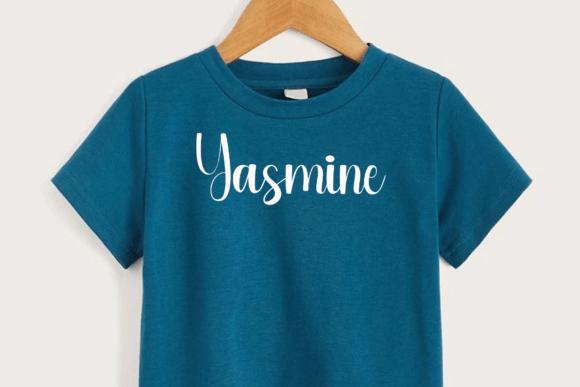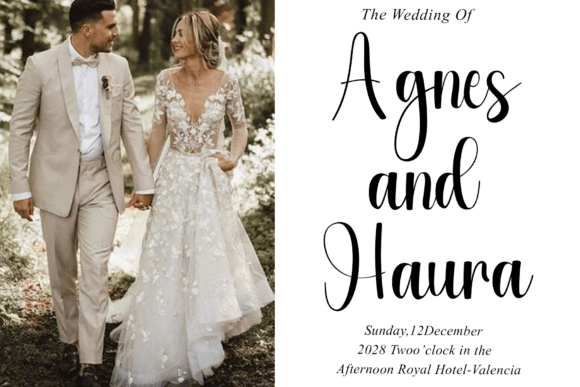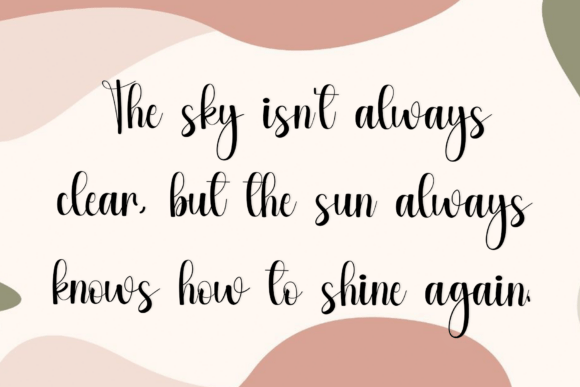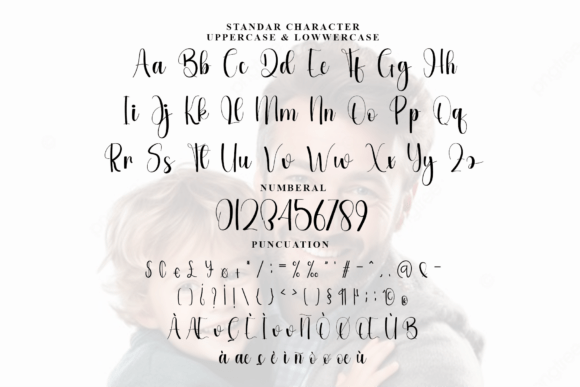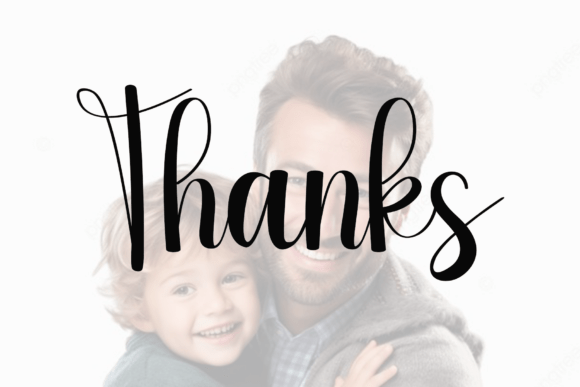
The Perfect Autumnal Font: Discovering Father Font
I’ll never forget the design struggle I faced while working on a fall-themed project for a local craft fair. My client wanted a font that embodied the warmth and coziness of the season, but I was coming up blank. That’s when I stumbled upon Father Font, a sophisticated and rhythmic script font that instantly captured the autumnal essence I was looking for.
As part of a modern handwritten collection, Father Font features high-contrast strokes with thick, grounded downstrokes and delicate hairline connectors. Its vertically elongated letterforms and graceful, looping ascenders mimic high-end inkwork, making it perfect for seasonal autumn marketing, artisanal food packaging, boutique event invitations, and sophisticated editorial headers.
- ✅ Unique and professional autumnal visual voice
- ✅ High-contrast strokes for added elegance
- ✅ Vertically elongated letterforms for a sophisticated look
- ✅ Supports OpenType features for advanced typography
- ⚠️ Limited use of uppercase letters, which can make it less versatile for certain projects
- ⚠️ May require some manual kerning for optimal results
The Story Behind Father Font
According to its creators, Father Font was inspired by the elegance of traditional inkwork and the warmth of autumn. The designers wanted to create a font that captured the essence of the season, with its rich colors and cozy atmosphere. The result is a font that’s both sophisticated and inviting, perfect for a wide range of design projects.
| Font Name | Father Font |
| Author | Plafont store |
Q: What type of projects is Father Font best suited for?
A: Father Font is ideal for seasonal autumn marketing, artisanal food packaging, boutique event invitations, and sophisticated editorial headers.
Q: Does Father Font support OpenType features?
A: Yes, Father Font supports OpenType features, including ligatures, stylistic alternates, and swashes.
Q: Is Father Font easy to read?
A: Yes, Father Font is designed to be highly legible, even at smaller font sizes. Its clear, elegant letterforms make it perfect for body text or headlines.